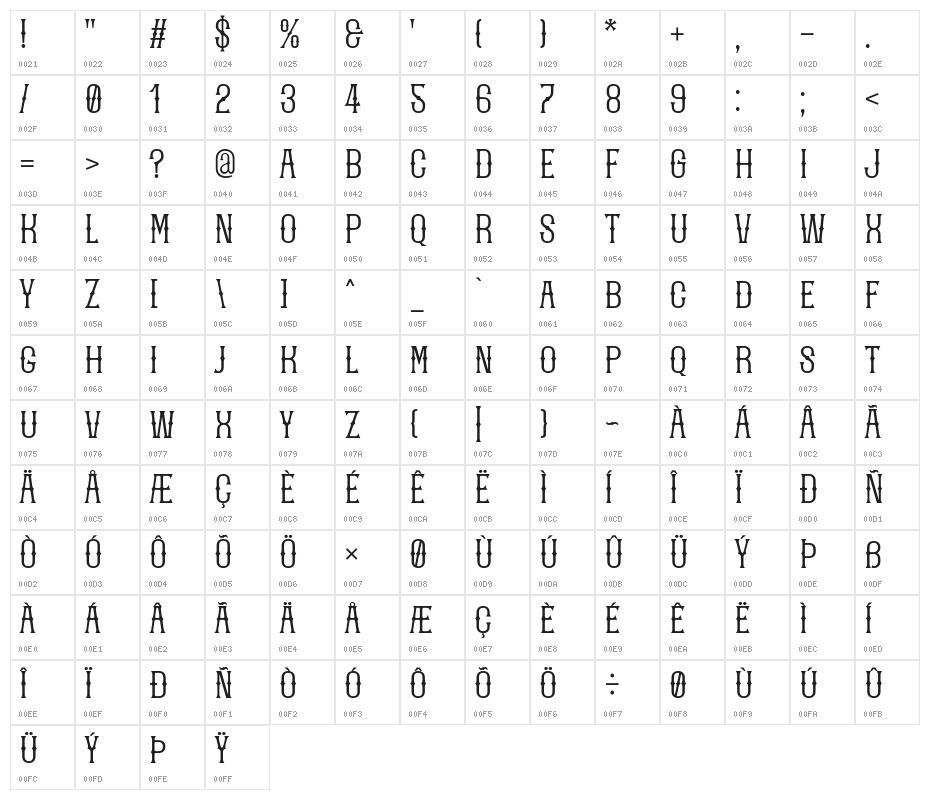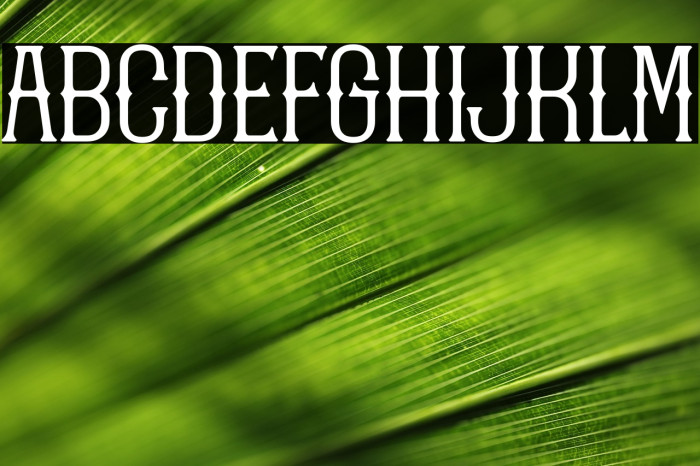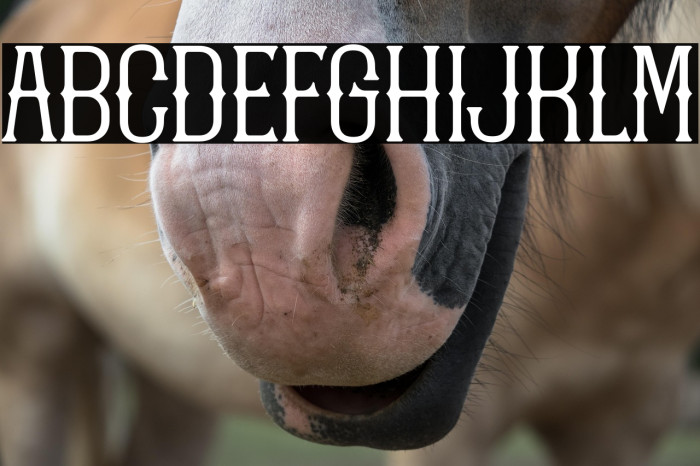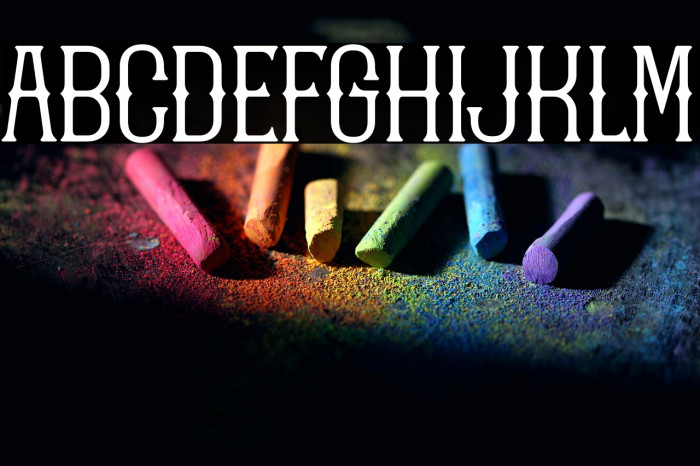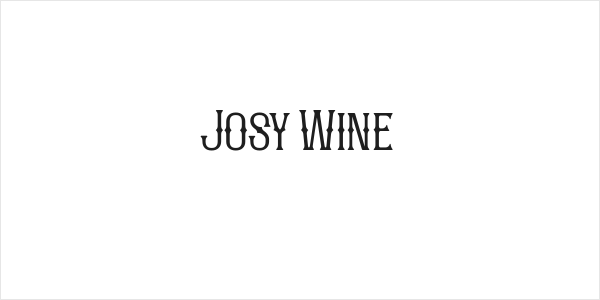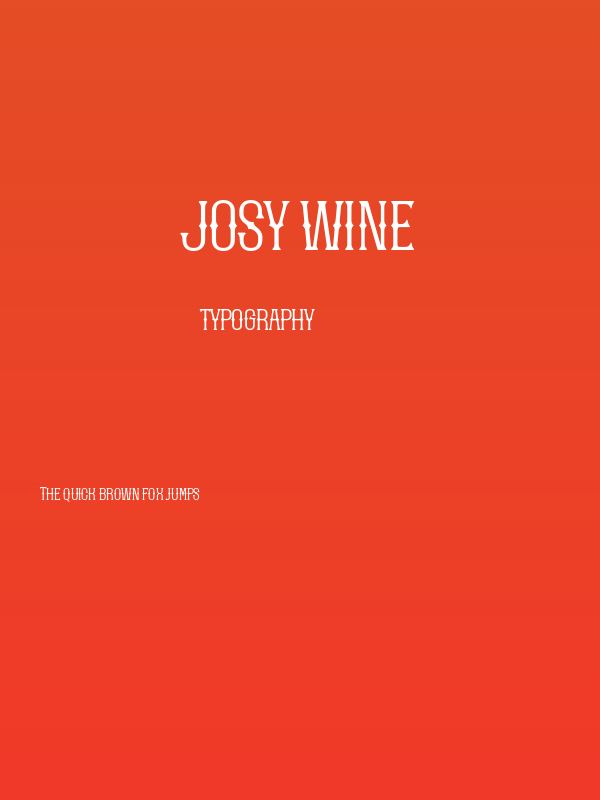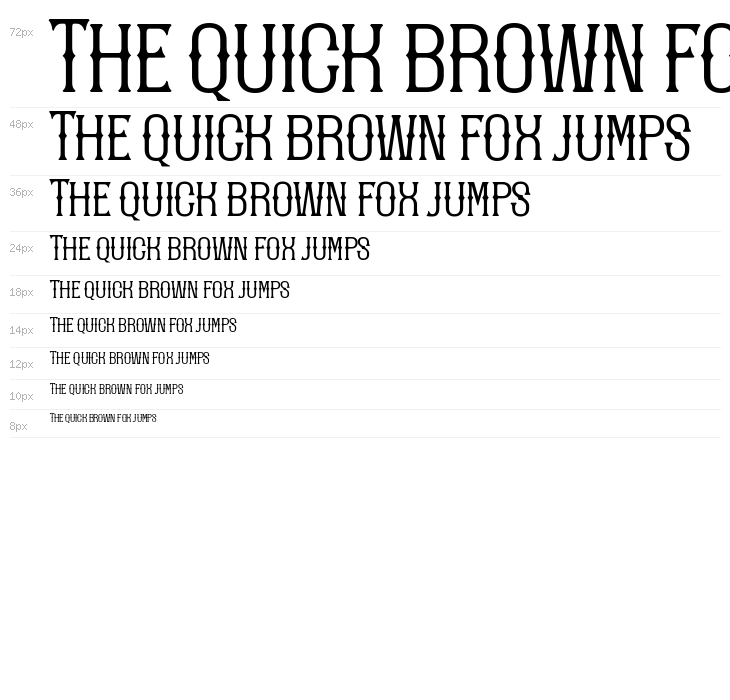
Josy Wine Font
Josy Wine Description
This font features a unique blend of modern and vintage aesthetics, characterized by its tall, narrow letterforms and distinct serifs. The uppercase letters exhibit a strong vertical emphasis, with slightly curved strokes that add a touch of elegance. The lowercase letters maintain a consistent style, ensuring readability while preserving the font's distinctive character. The numerals are designed with a similar attention to detail, providing a cohesive look across all characters. Special characters are included, each crafted to match the overall style, making this font versatile for various design needs.
| Overall Style | Modern Vintage |
| Use Case | Headlines, Logos, Editorial Design |
| Proposed Projects | Ideal for branding projects, editorial design, and packaging where a touch of sophistication is desired. |